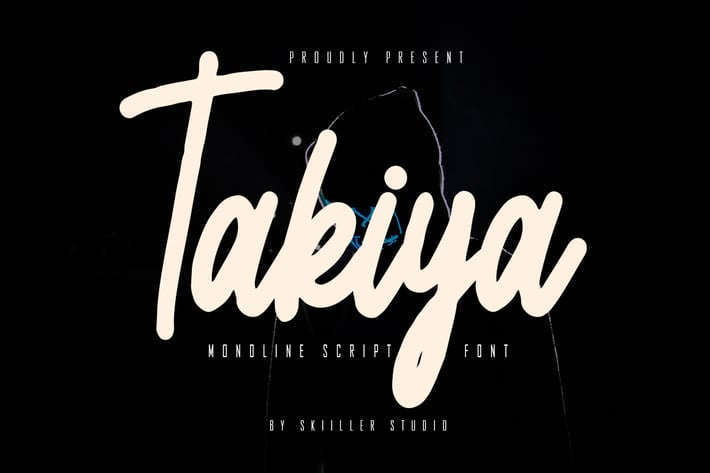
Takiya - Monoline Script Font
Takiya is a Monoline Script font, described by an elegant touch, perfect for your favorite projects. Fall in love with its incredibly distinct and timeless style and use it to create spectacular designs!
+ Basic Latin Language Support (AÀÁÂÃÄÅCÇDÐEÈÉÊËIÌÍÎÏÑOØÒÓÔÕÖUÙÜÚÛWYÝŸÆß )